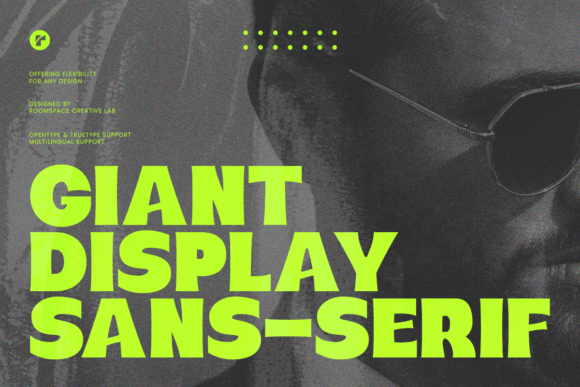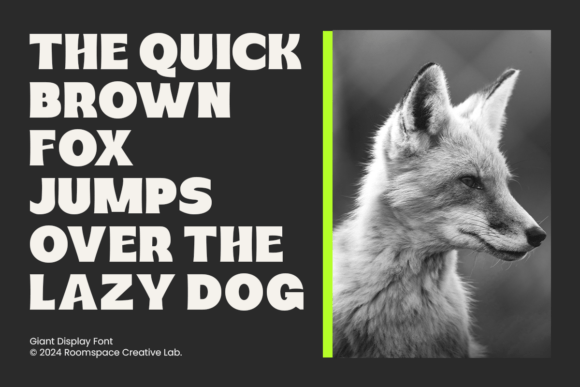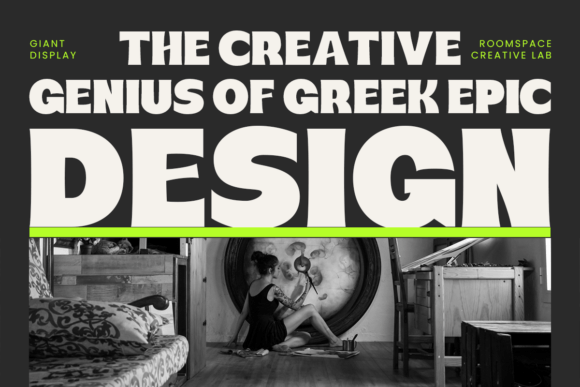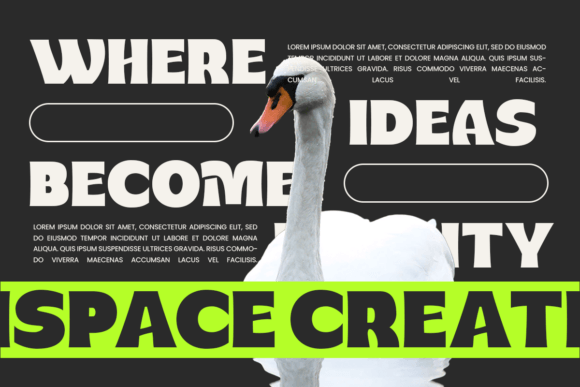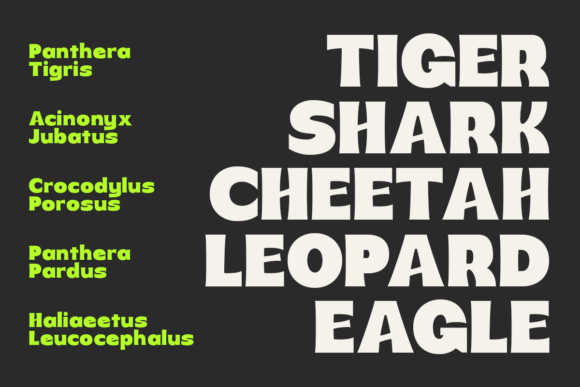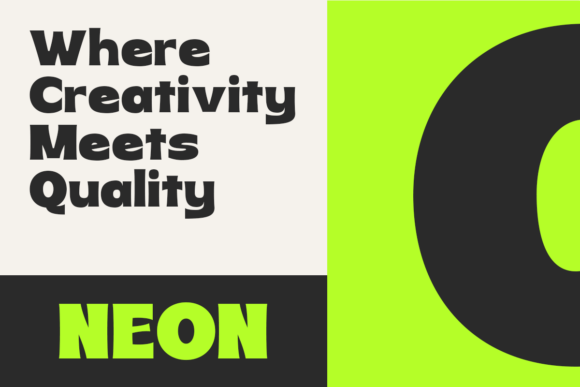
Introduction to Giant Display Font
Have you ever been working on a creative project, pouring your heart and soul into a design, only to feel like something’s missing – a spark, a pop, a bold statement? That’s where the Giant Display Font comes in, a powerful sans serif display typeface designed to make a lasting impression. Its strong lines and assertive style are crafted to stand out in any project, from branding and posters to packaging and digital media.
Whether you’re a seasoned designer or just starting out, the Giant Display Font is a valuable resource that can elevate your designs to the next level. With its unique, impactful design, it draws attention and exudes confidence, making it perfect for headlines, logos, and any display-focused designs. And the best part? This high-quality font is available for free download, making it an accessible design resource for anyone looking to take their creative projects to the next level.
From transparent backgrounds to bold typography, the Giant Display Font is a game-changer for designers looking to make a statement. With its versatility and impact, it’s no wonder this font has become a go-to choice for creatives around the world.
Key Features of Giant Display Font
- High-quality design suitable for creative projects, including posters, billboards, and other large-format displays.
- Comes in a large size, perfect for making a statement in your design, with a scalable resolution of up to 300 DPI.
- Unique characteristics include bold lines, rounded edges, and a distinctive style that sets it apart from other display fonts.
- Perfect for designers who want to add a touch of personality to their work, making it an ideal choice for creative projects that require a bold and eye-catching font.
Honest Review: Giant Display Font
I recently stumbled upon the Giant Display Font and I must say it’s a great addition to any designer’s toolkit. As a designer, I’m always on the lookout for high-quality fonts that can elevate my creative projects. The Giant Display Font is a perfect example of what I’m looking for.
- High-quality design that’s perfect for large-scale displays
- Wide range of characters and symbols, making it versatile for various projects
- The font may not be suitable for small-scale projects due to its large size
- Lack of support for certain languages and scripts
Overall, I’m impressed with the Giant Display Font. It’s a solid choice for designers looking to add a touch of grandeur to their projects. With its high-quality design and free download, it’s a valuable resource that I’ll definitely be using in the future.
The Giant Display Font is ideal for use in headings, titles, and slogans. It’s also a great choice for creating attention-grabbing designs and promotional materials. Whether you’re working on a personal or professional project, the Giant Display Font is a versatile design resource that’s sure to impress.